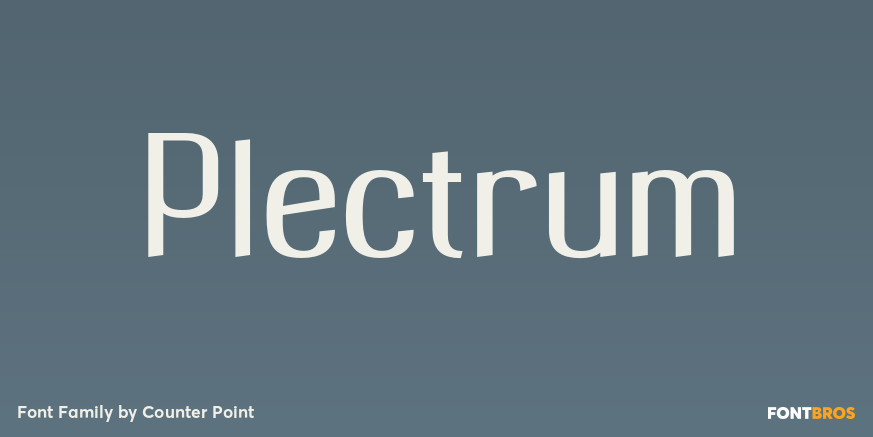
Plectrum
About Plectrum
As the first multi-font family designed for the CounterPoint font library, Plectrum offers designers and font lovers an alternative to the usual display style fonts of CounterPoint with a low key yet elegant sans serif family that can serve a variety…